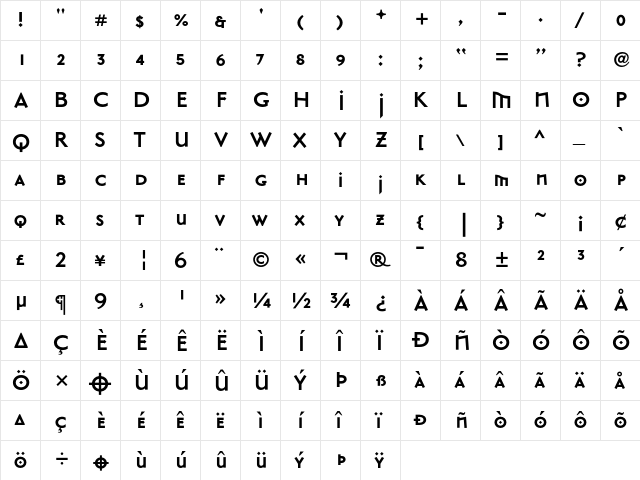
MasonSans AlternateBold Font Preview
MasonSans AlternateBold
Design Context for MasonSans Typeface
MasonSans is a composed and adaptable typeface that performs quietly and consistently across a wide range of design contexts. Its bold stroke weight gives it real presence on the page.